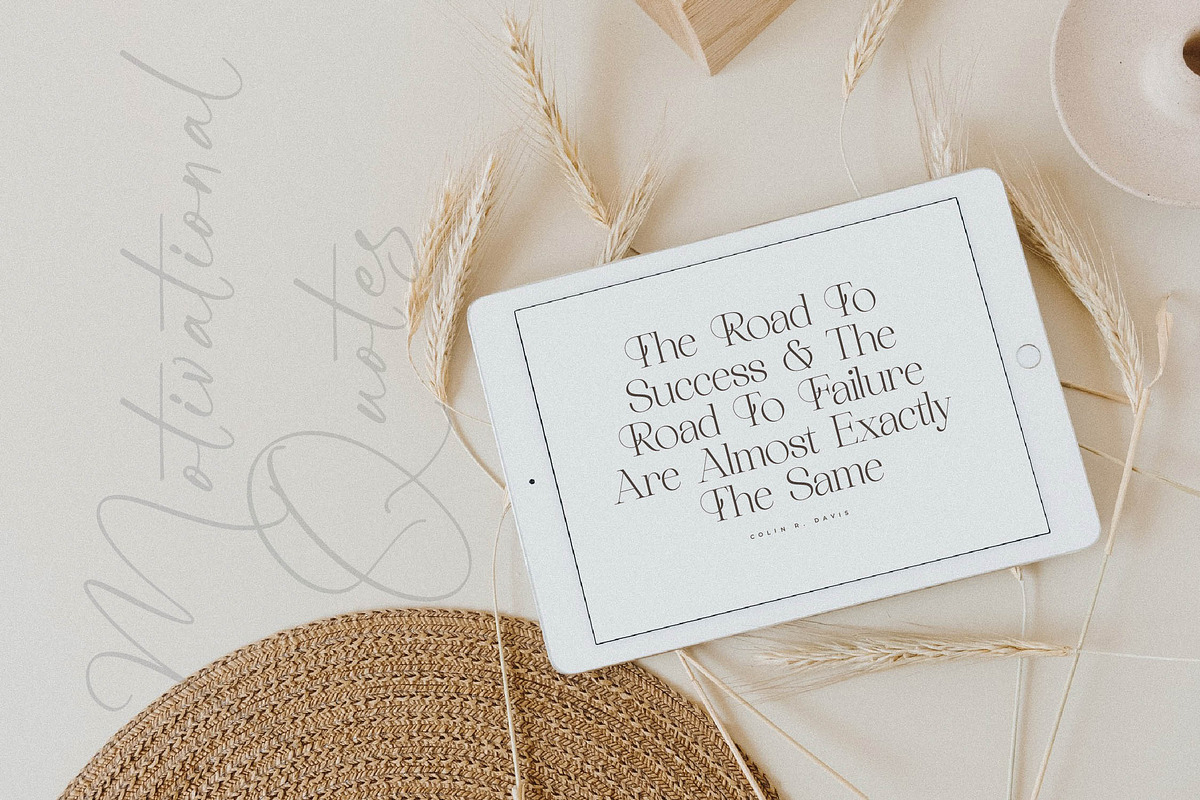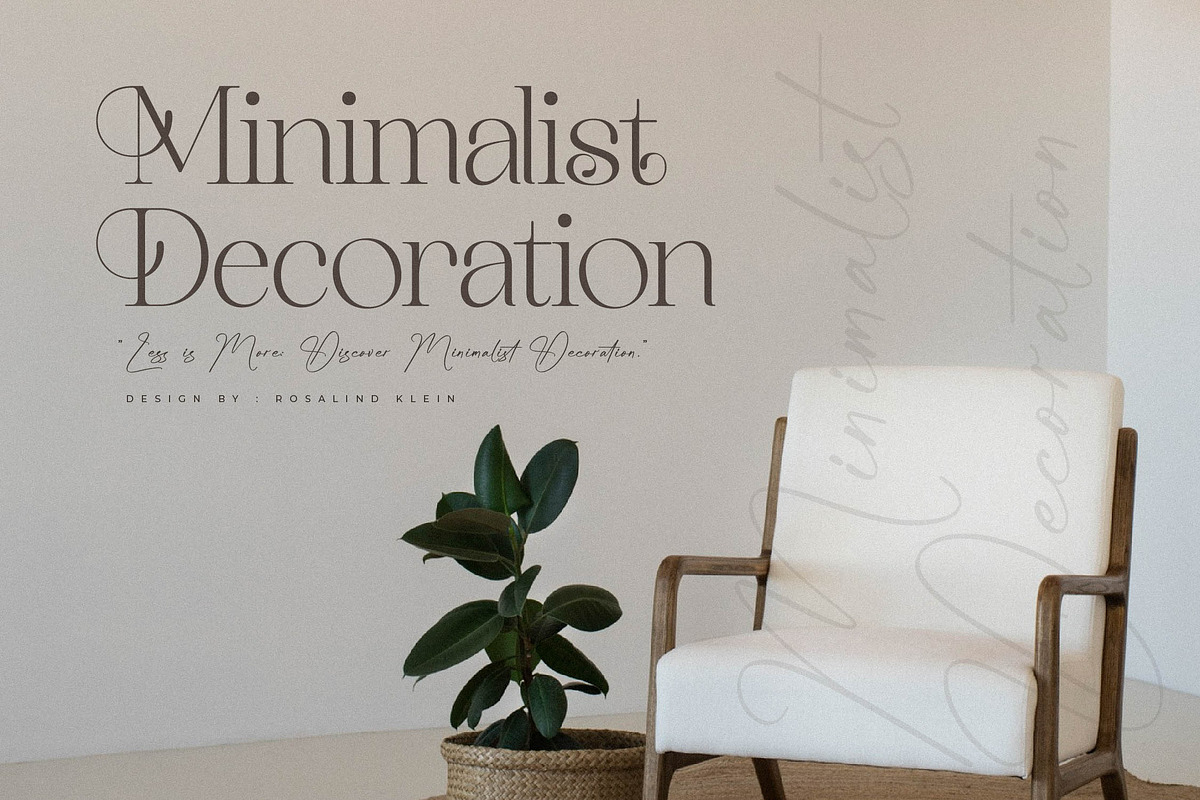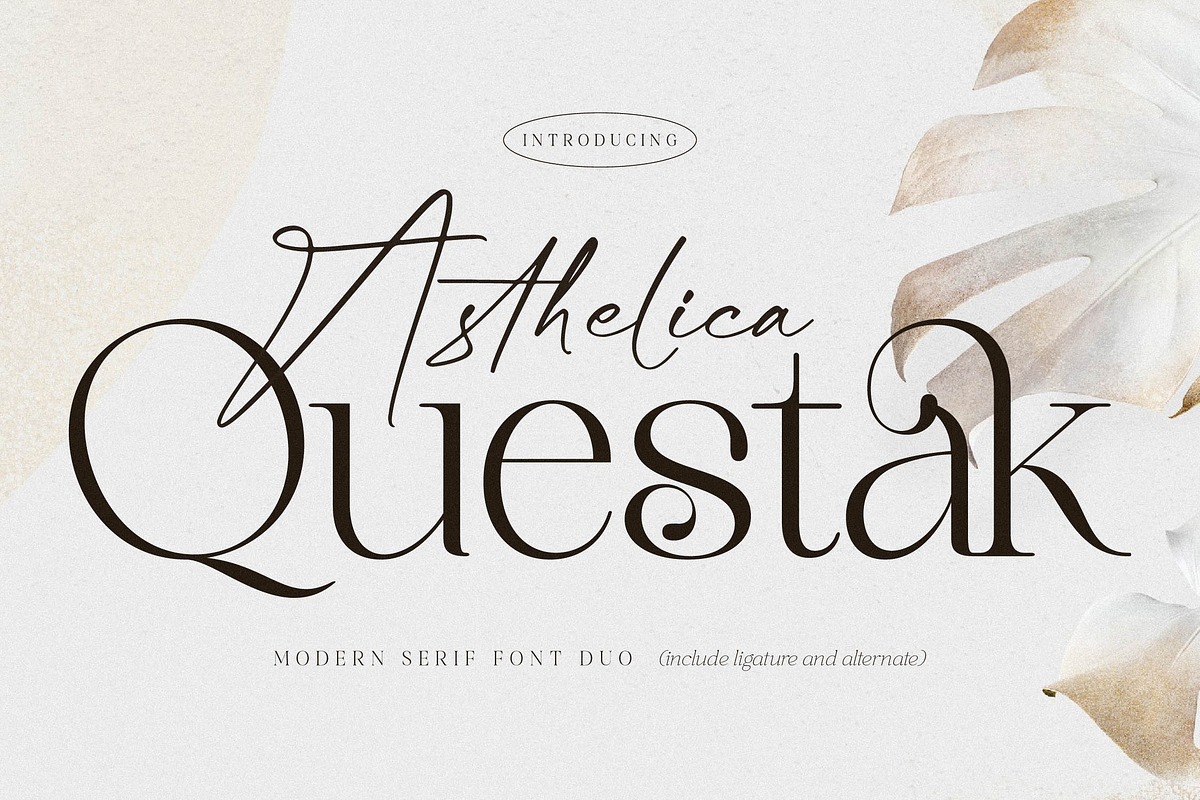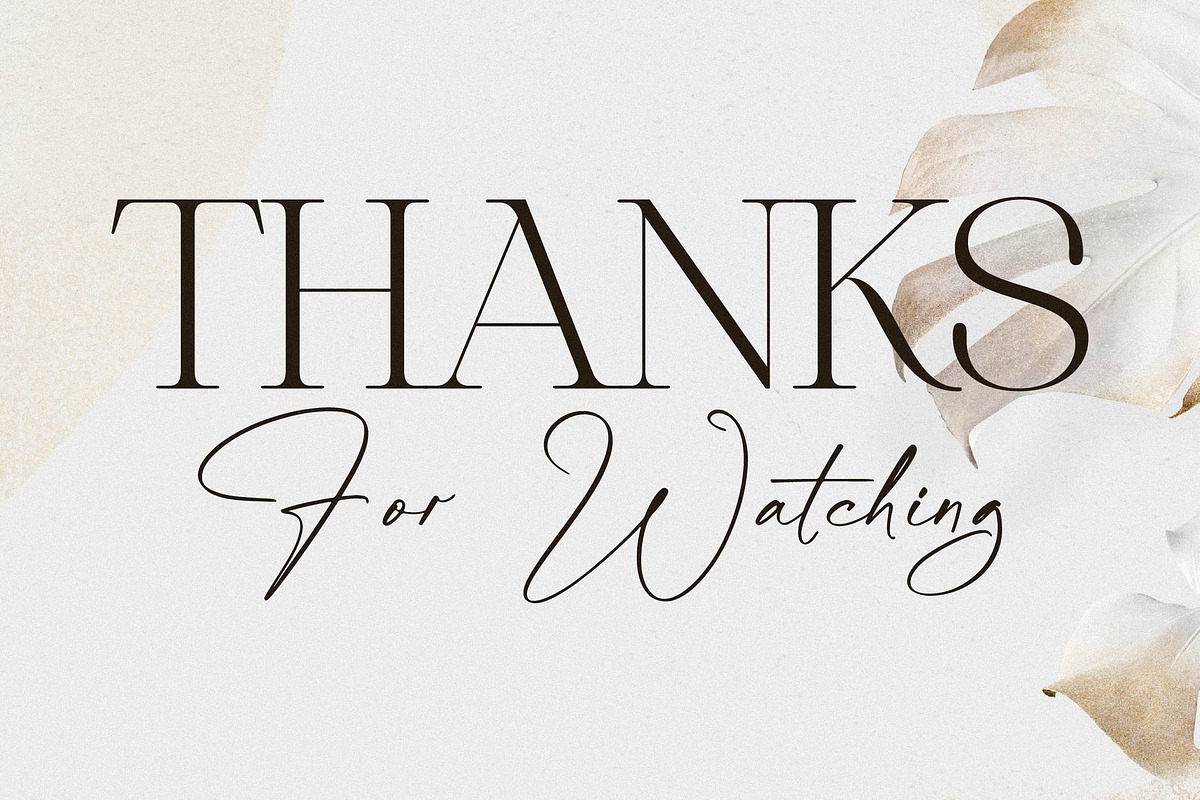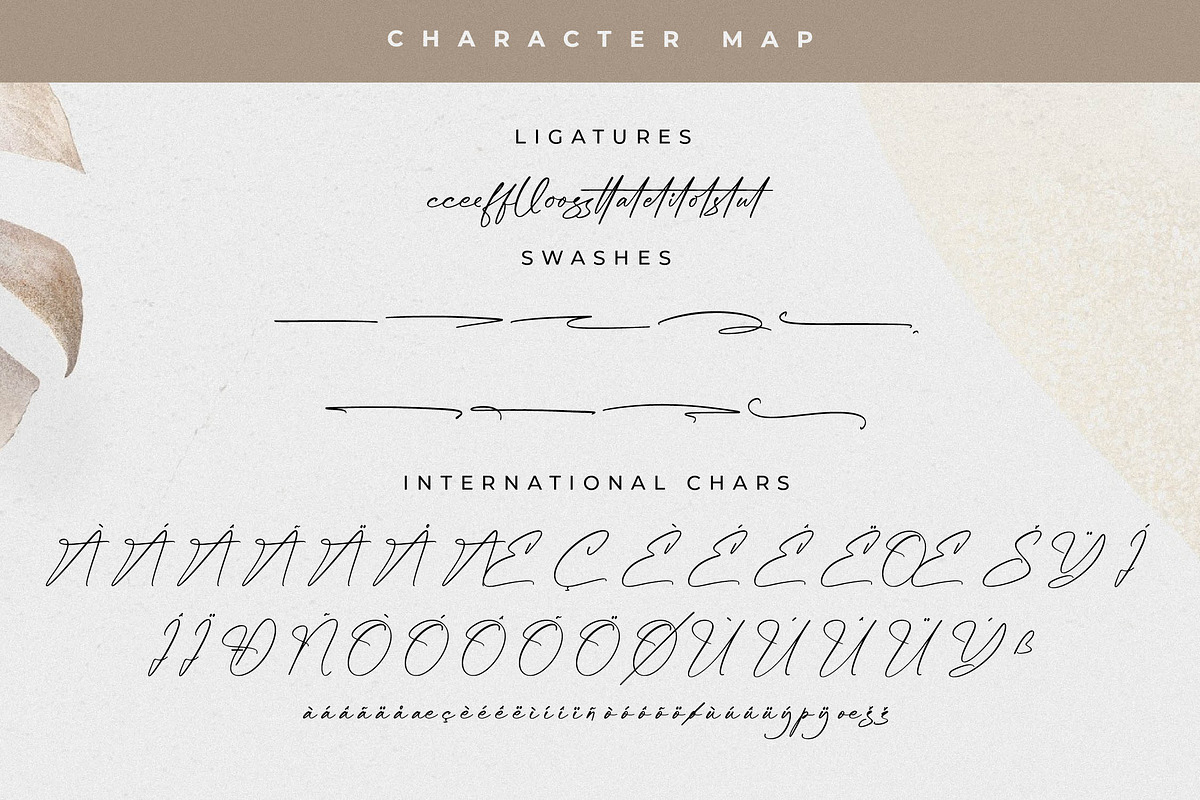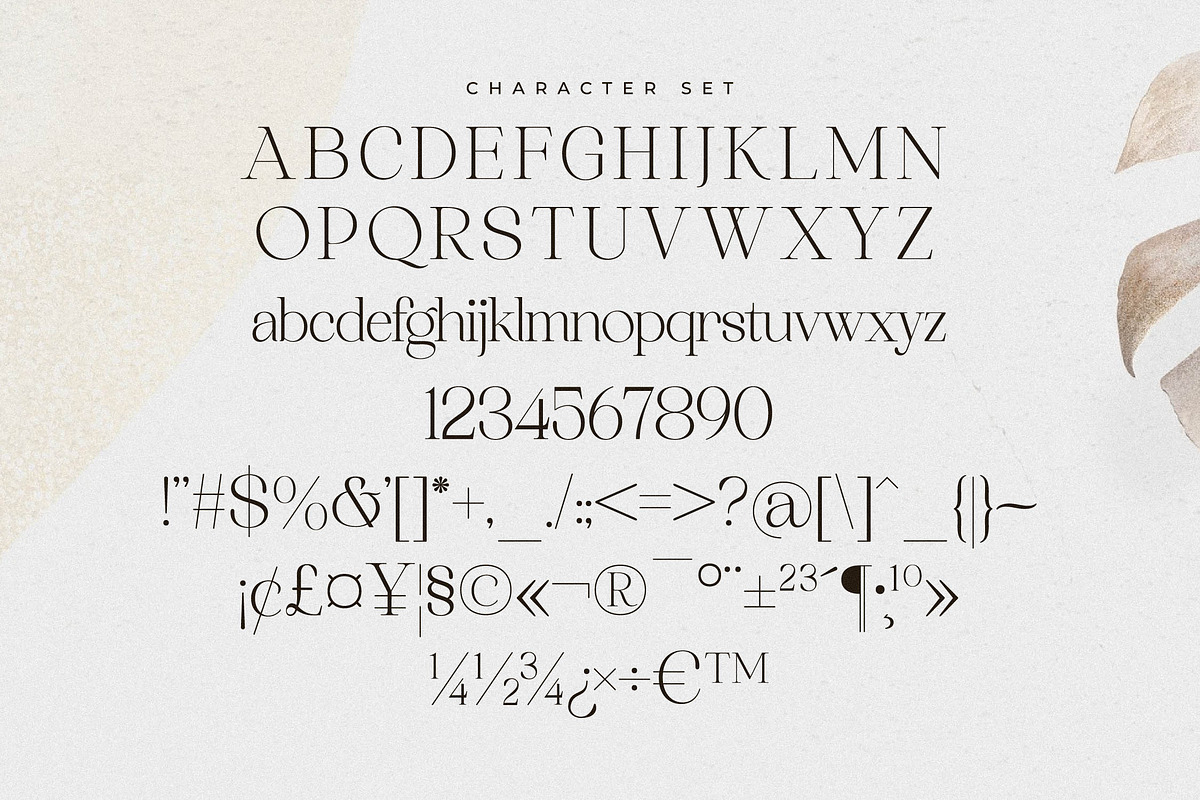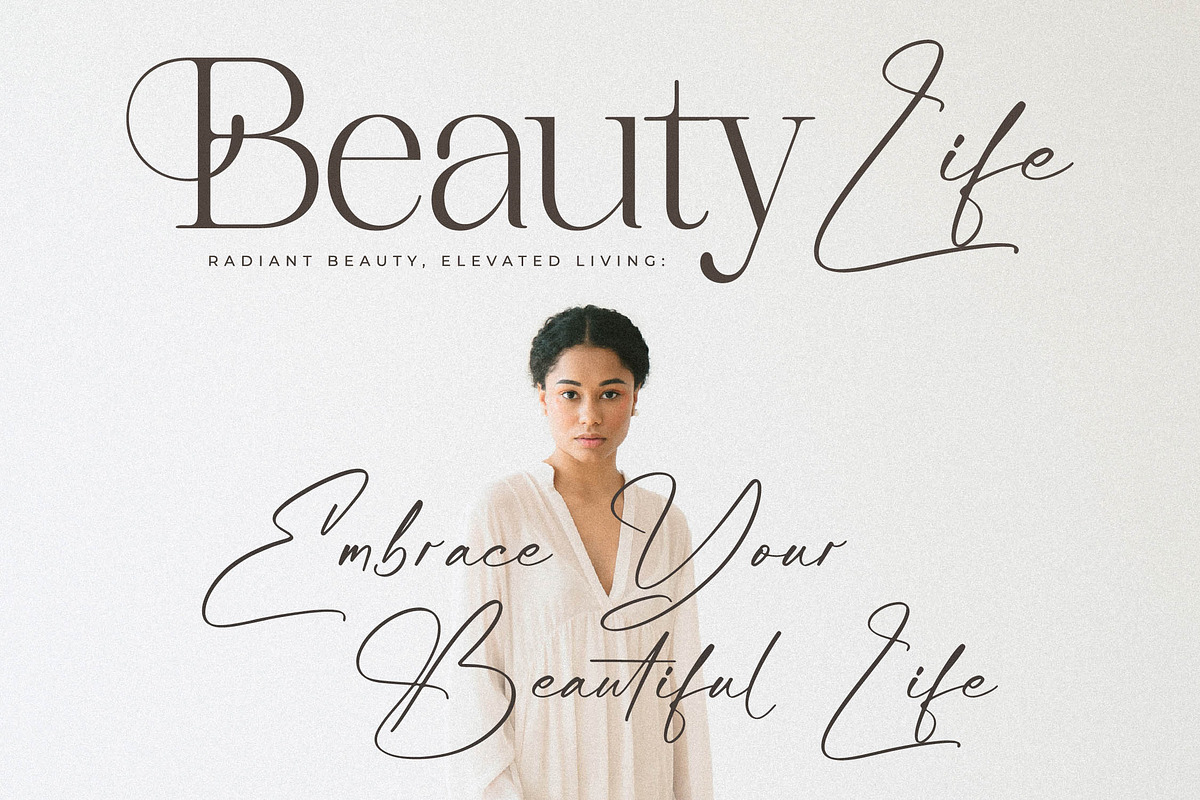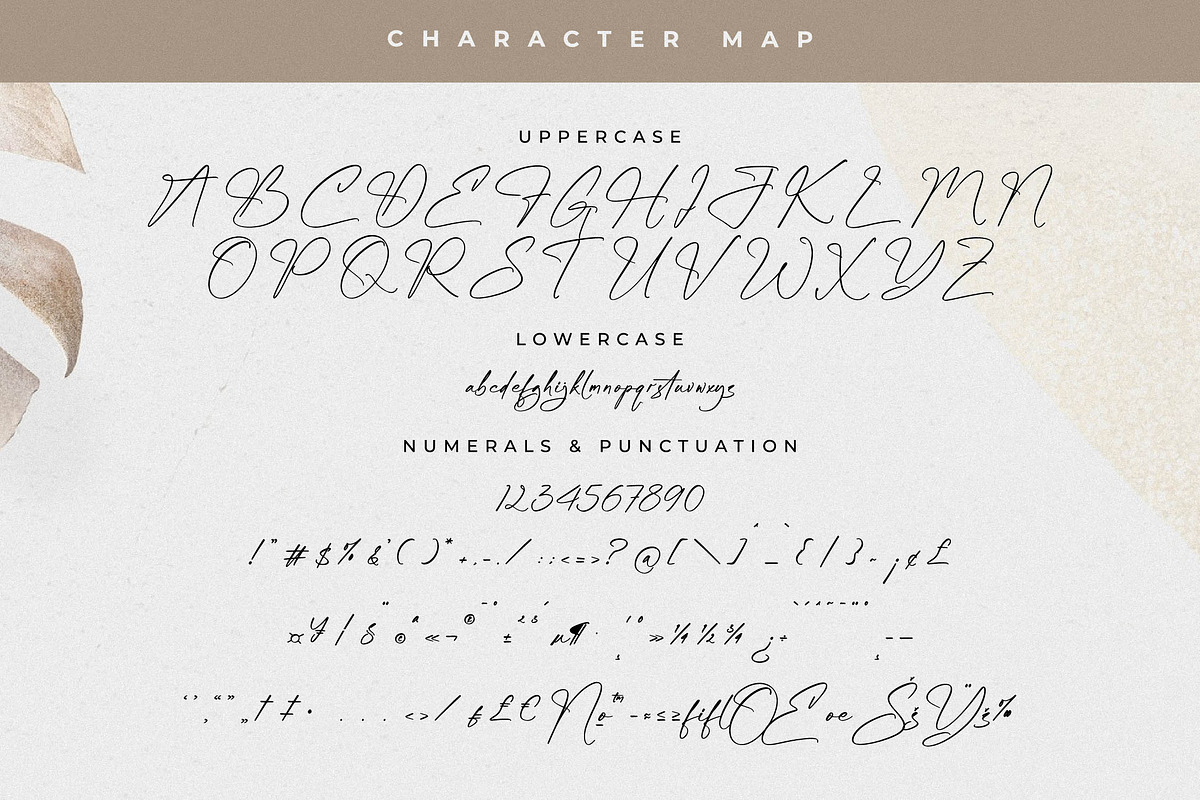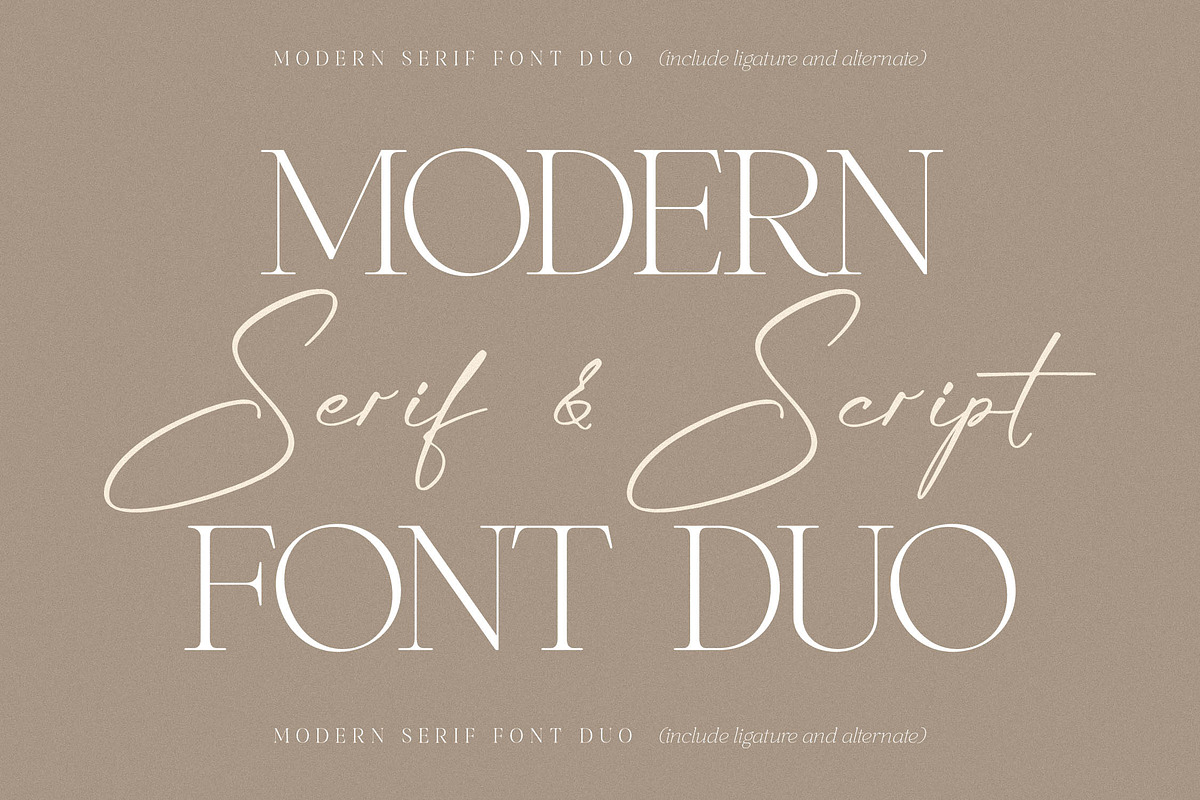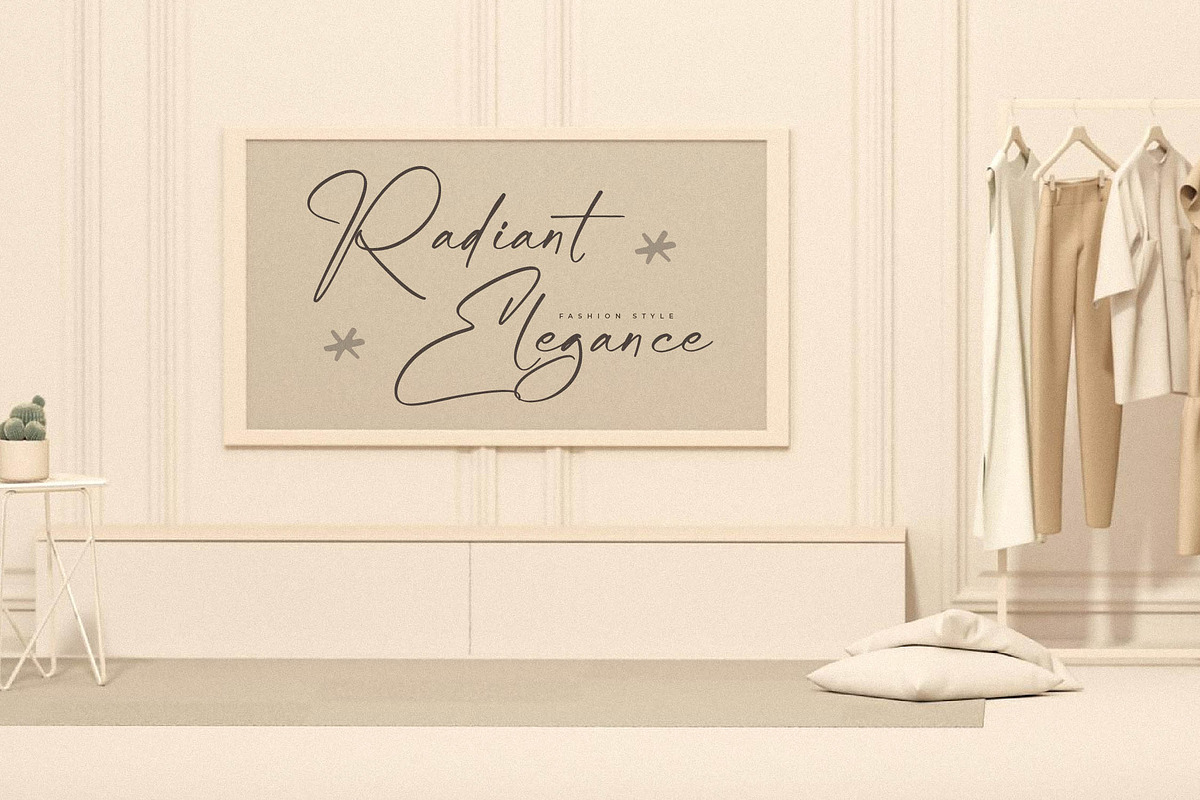
Asthelica Questak Modern Font Duo
Proudly present Asthelica Questak Font Duo , created by Storytype, A serif and script typeface that has own unique style & modern look. This typeface is perfect for an elegant & luxury logo, book or movie title design, fashion brand, magazine, clothes, lettering, quotes, and so much more.